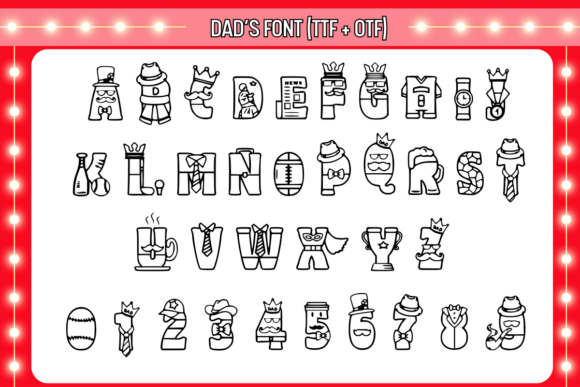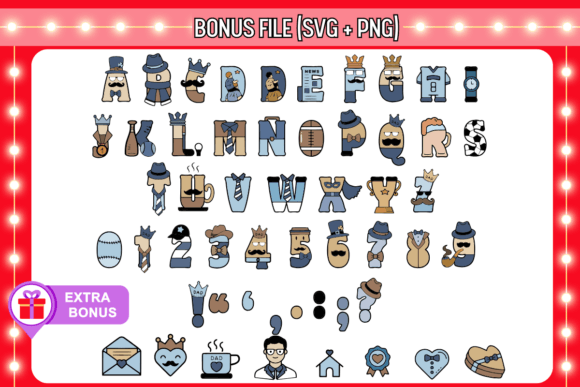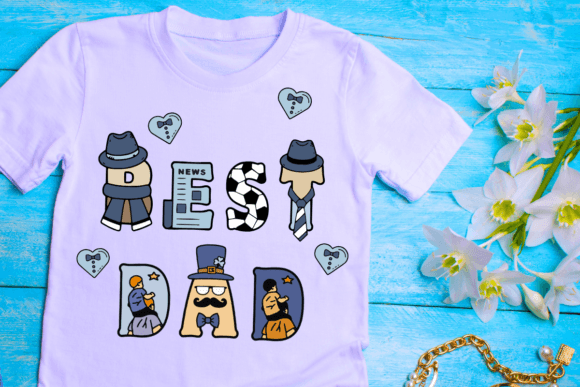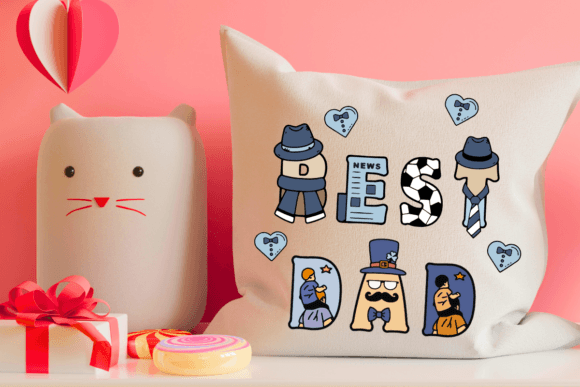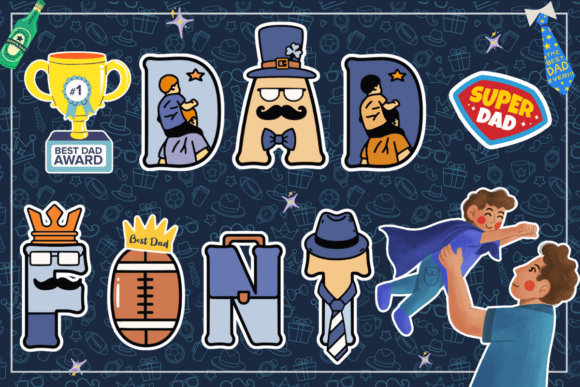
Celebrate the Superhero in Every Father with the Dad Font!
Are you looking for a unique and creative way to express your love and appreciation for the special dad in your life? Look no further than the Dad Font! This playful and creative font is designed with dad-themed elements like ties, hats, trophies, and more, making it perfect for Father’s Day cards, gift designs, posters, or any dad-centric project.
What is the Dad Font?
The Dad Font is a custom-designed font that incorporates various elements associated with dads, such as ties, hats, trophies, and more. The font is packed with personality and radiates love, humor, and appreciation for dads everywhere. With its playful and creative design, the Dad Font is sure to make your dad-centric projects stand out.
Features of the Dad Font
- Dad-themed elements: The font features various dad-themed elements, such as ties, hats, trophies, and more, which add a playful and creative touch to your designs.
- Playful and creative design: The Dad Font has a unique and playful design that is sure to bring a smile to anyone’s face.
- Perfect for Father’s Day: The font is perfect for creating Father’s Day cards, gift designs, posters, or any other dad-centric project.
Uses of the Dad Font
The Dad Font is versatile and can be used for a variety of projects, including:
- Father’s Day cards: Create personalized and unique Father’s Day cards with the Dad Font.
- Gift designs: Add a personal touch to your gifts with the Dad Font, making them extra special for dads.
- Posters: Create eye-catching posters with the Dad Font to celebrate dads.
- Dad-centric projects: Use the Dad Font for any project that celebrates dads, such as t-shirts, mugs, or other promotional items.
Benefits of Using the Dad Font
Using the Dad Font has several benefits, including:
- Unique and creative designs: The Dad Font allows you to create unique and creative designs that will stand out from the crowd.
- Personal touch: The font adds a personal touch to your designs, making them extra special for dads.
Tips for Using the Dad Font
Here are some tips for using the Dad Font:
- Experiment with different designs: Try out different designs and see what works best for your project.
- Use it with other fonts: Combine the Dad Font with other fonts to create a unique and creative look.
- Add images and graphics: Add images and graphics to your designs to make them extra special.
The Dad Font is a unique and creative way to celebrate the superhero in every father. With its playful and creative design, the font is perfect for Father’s Day cards, gift designs, posters, or any dad-centric project. Whether you’re a designer or crafter, the Dad Font is easy to use and adds a personal touch to your designs. So why wait? Download the Dad Font today and start creating unique and creative designs for dads everywhere!